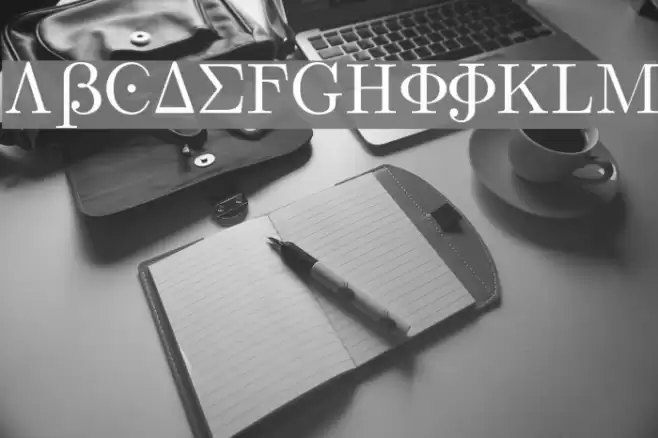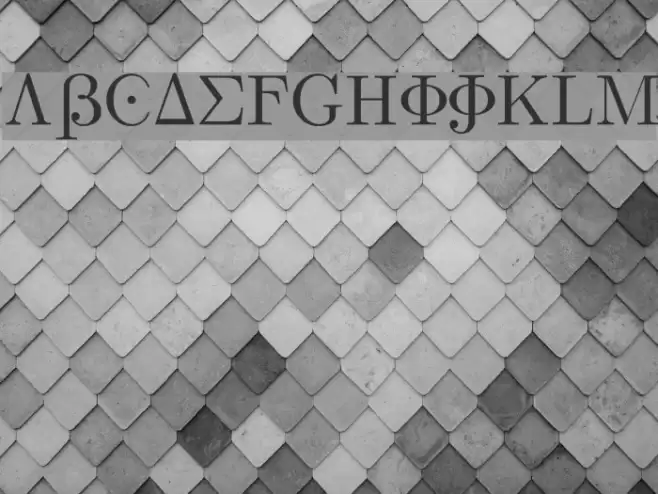
Faux Greeks Font
Faux Greeks Description
This font blends traditional Greek letterforms with a modern serif style, creating a unique and sophisticated appearance. The uppercase letters feature distinct Greek-inspired shapes, while the lowercase maintains a classic serif structure. The numerals are elegantly styled, complementing the overall aesthetic. Special characters are included, maintaining consistency with the font's theme. The design is both decorative and functional, making it suitable for various applications.
A modern serif font with Greek-inspired letterforms and elegant styling from Uncategorized fonts.
- Proposed Projects: Ideal for projects requiring a classical yet modern touch, such as branding, editorial design, and cultural publications.
- Use Case: Headlines, Logos, Editorial design